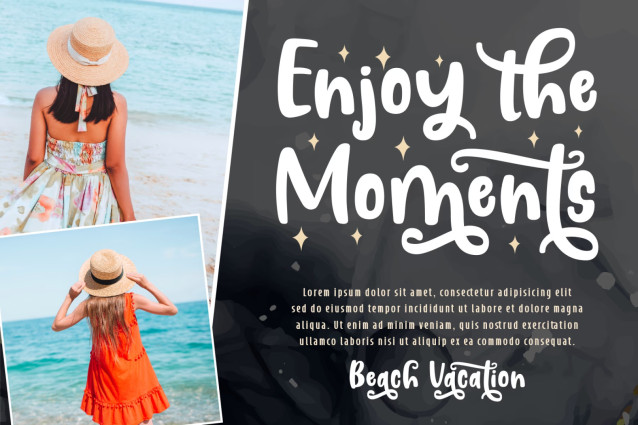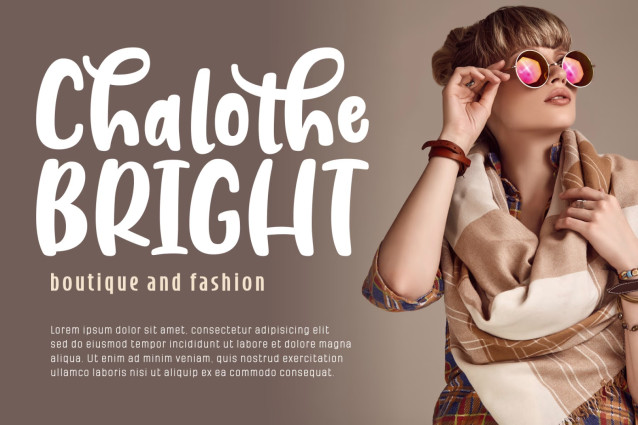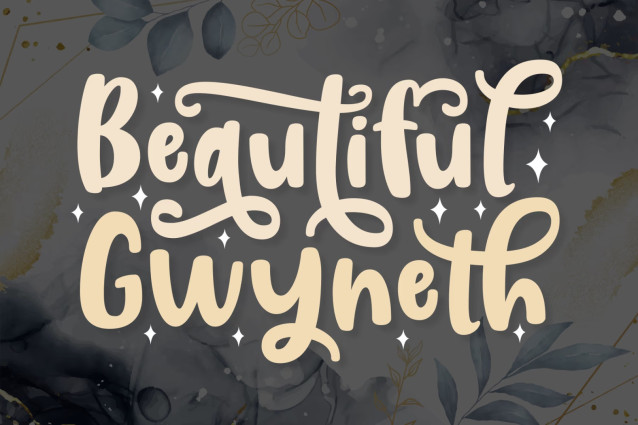
Beautiful Gwyneth Font
Beautiful Gwyneth is a lovely and gorgeous handwritten font. It maintains its classy calligraphic influences while feeling contemporary and fresh. Fall in love with it and bring your projects to the highest levels! This font is PUA encoded which means you can access all the glyphs and ligatures with ease!